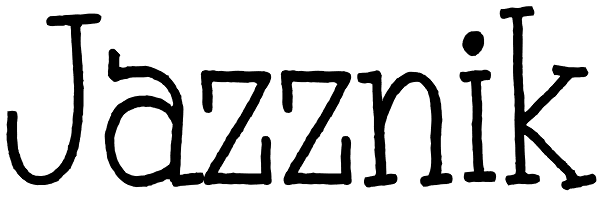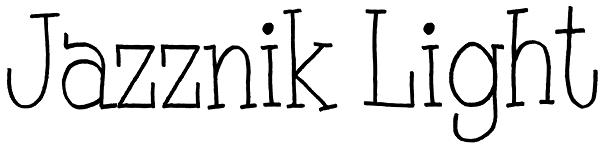
Jazznik
"Dig that crazy beat, daddio!" That's what all the cats and kittens are saying about that nutty, way-out Jazznik. I mean, there's a whole Jazznik family that's like a hot midnight jam session… with no squares allowed! Count it off with Jazznik...